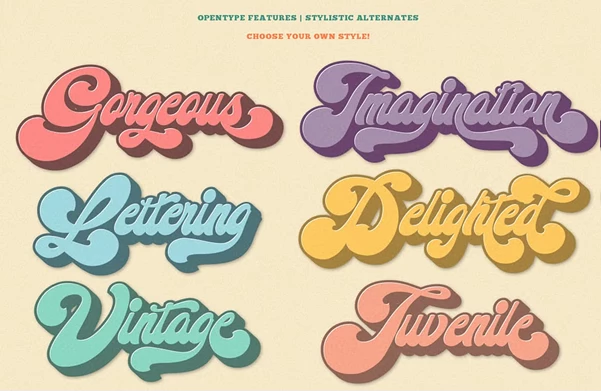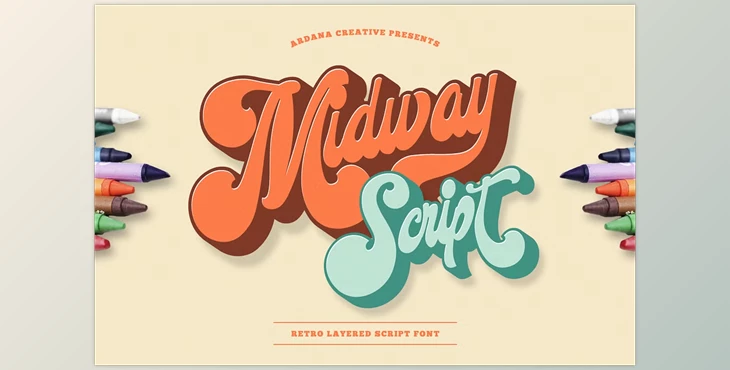
Midway - Retro Layered Script Typeface: Introducing Midway, an elegant retro bold script typeface that effortlessly brings a vintage charm to your designs. Perfect for creating logos, t-shirts, vintage badges, quotes, branding, packaging, and more, Midway offers a full set of uppercase and lowercase characters, numbers, and punctuation. Its extensive feature set includes multilingual language support, PUA-encoded characters, over 320 glyphs, and up to 80 stylistic alternates with elegant swashes and ligatures. With its OpenType features, Midway provides a versatile and easy-to-use solution for crafting eye-catching retro designs.